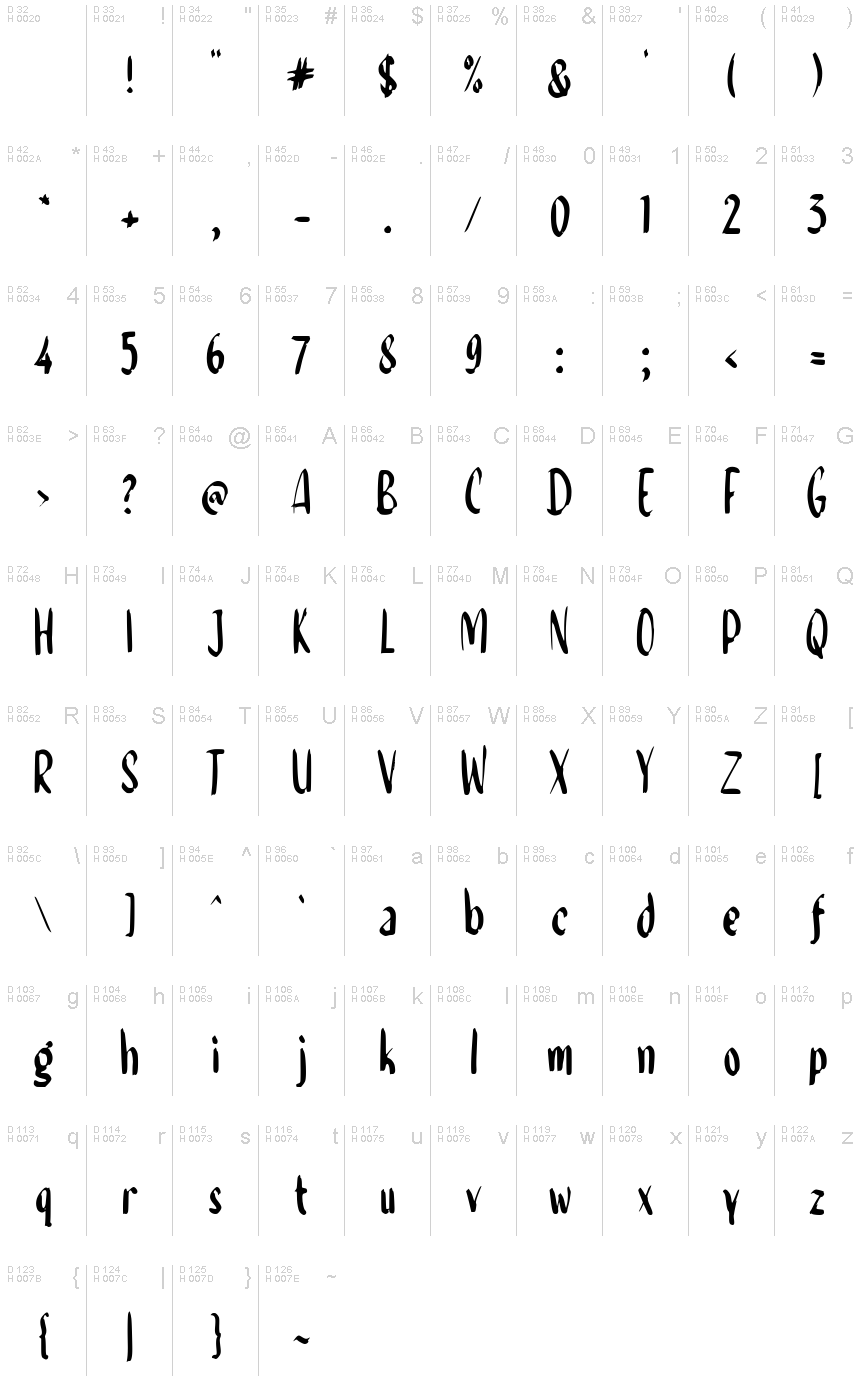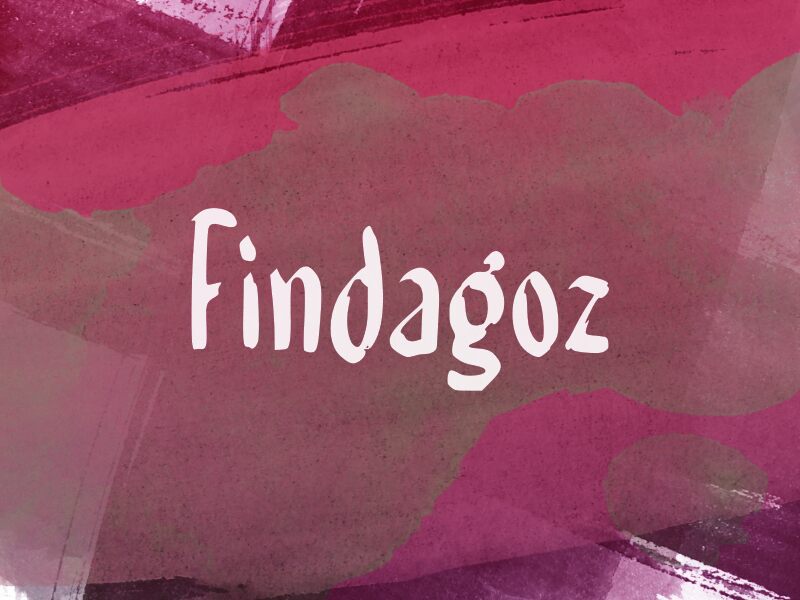
Findagoz
Findagoz font from wep is a free font with the quirkiness of printed letters. The funky, playful, and whimsical design is concise thanks to rounded strokes and artistic flair that’s visible in every letter. The uneven baseline makes the typography style all the more attractive as a result of its simplicity.
Take on an informal project or an educational one for children as Findagoz excels in both. Advertisements, posters, branding projects, product labels, badges, booklets, invitations etc can all be created with this distinctive typeface.